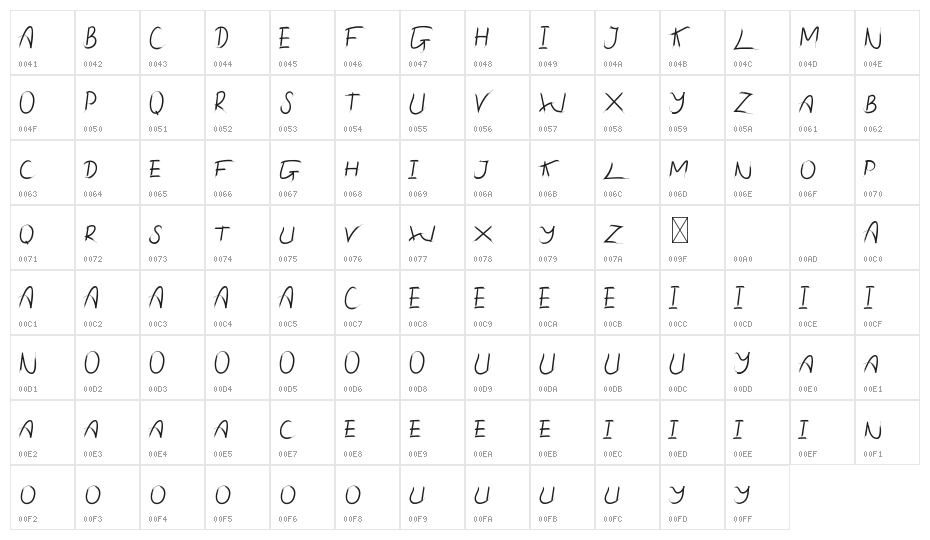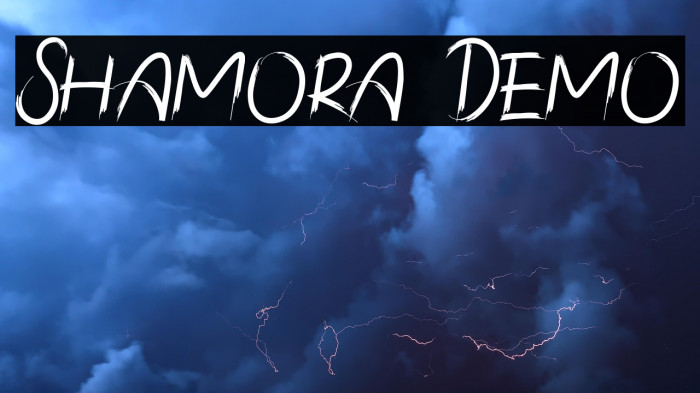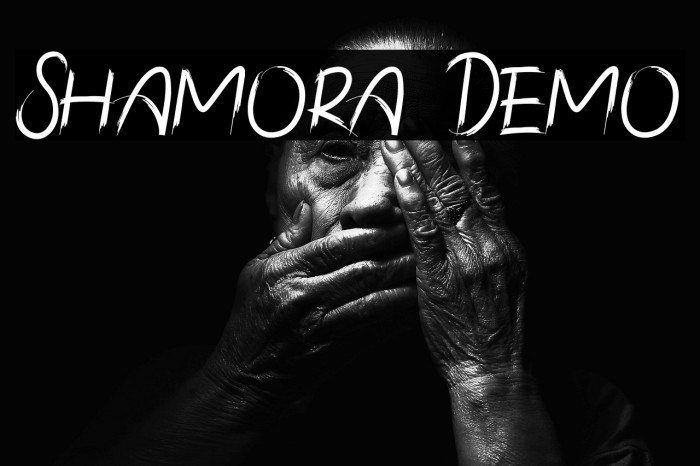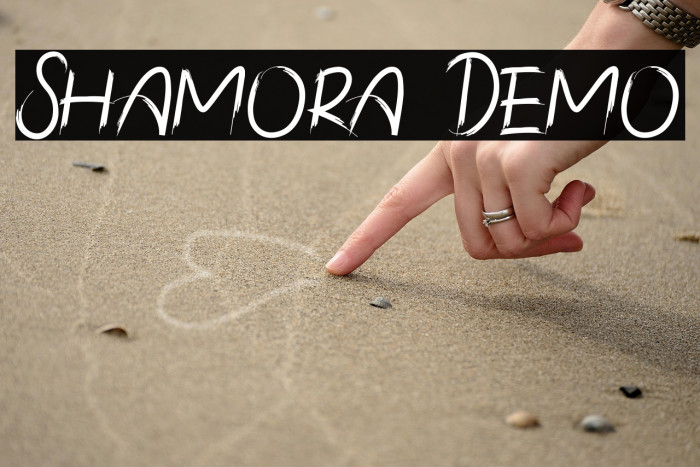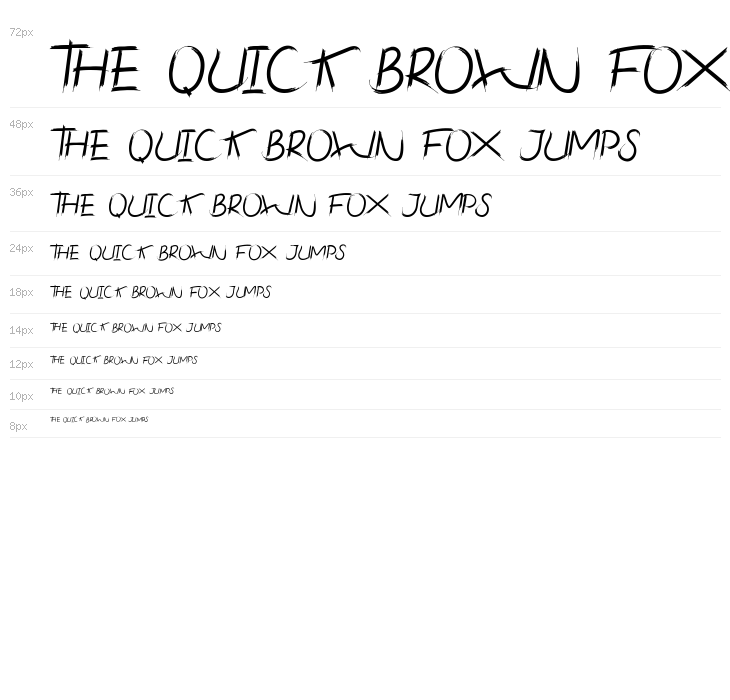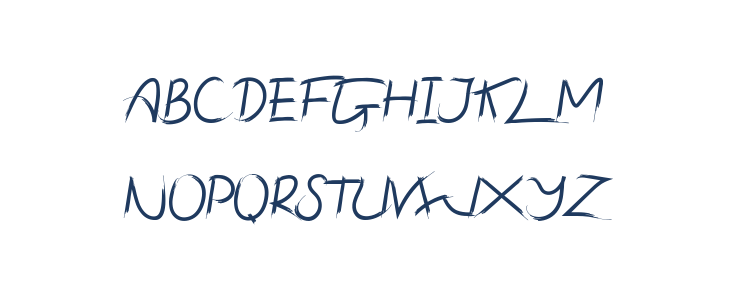
Shamora Demo Font
Shamora Demo Description
This font exhibits a dynamic and expressive style, characterized by its sharp, angular strokes and a brush-like appearance. The letters have a fluid motion, giving them an energetic and artistic feel. The uppercase letters are bold and striking, with exaggerated curves and pointed edges that create a sense of movement. The lowercase letters maintain this fluidity, with a slightly more restrained form, yet they still convey a sense of creativity and flair. The numbers and special characters follow the same stylistic approach, ensuring consistency throughout the typeface. This font is ideal for projects that require a bold and artistic touch, such as branding, posters, and creative designs.
| Overall Style | Artistic, Expressive |
| Proposed Projects | Ideal for branding, posters, creative designs, and any project needing an artistic touch. |